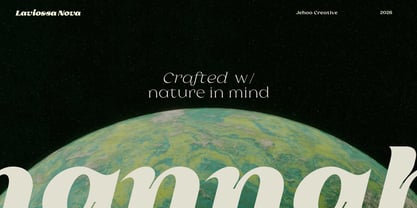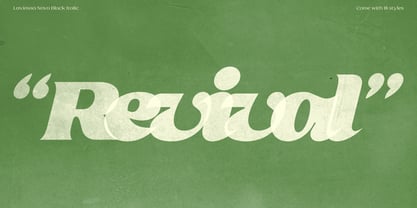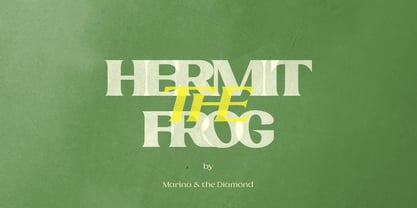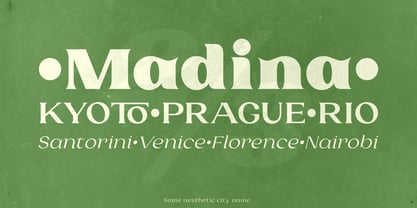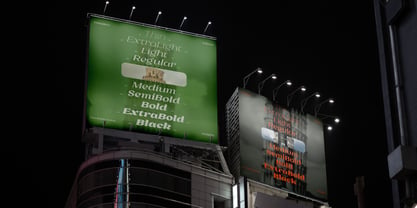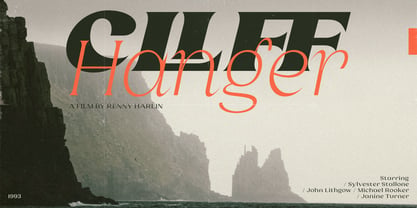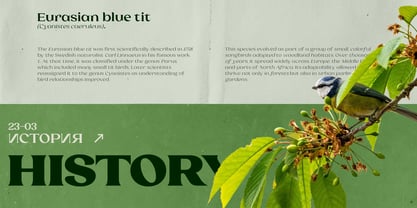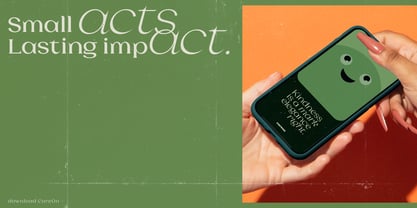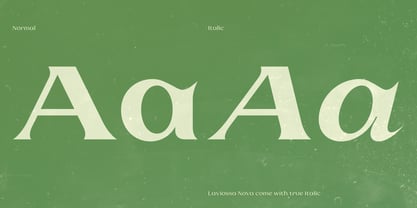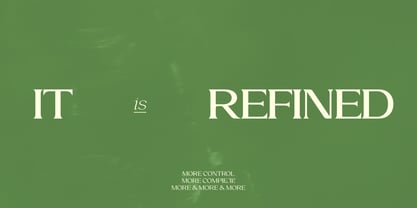
Laviossa Nova
by Jehoo Creative
The Laviossa Nova Font Family was designed by Anwar Patihan and published by Jehoo Creative. Laviossa Nova contains 18 styles and family package options. More about this family
Laviossa Nova is the latest, refined evolution of Laviossa—reworked with a sharper focus on balance, precision, and overall consistency. Every detail has been carefully reconsidered, resulting in a more polished and cohesive serif that elevates the foundation of its predecessor. The family includes 18 styles, spanning 9 weights from Thin to Black, each paired with true italics. Designed as a unified system, every style transitions seamlessly across the range, allowing for both subtle, understated text and more expressive typographic statements. Laviossa Nova also expands its reach with full Cyrillic support, making it suitable for broader, multilingual applications. With its controlled contrast and elegant proportions, Laviossa Nova feels naturally at home in branding, editorial, and fashion contexts—offering a serif voice that is refined, confident, and distinctly modern.